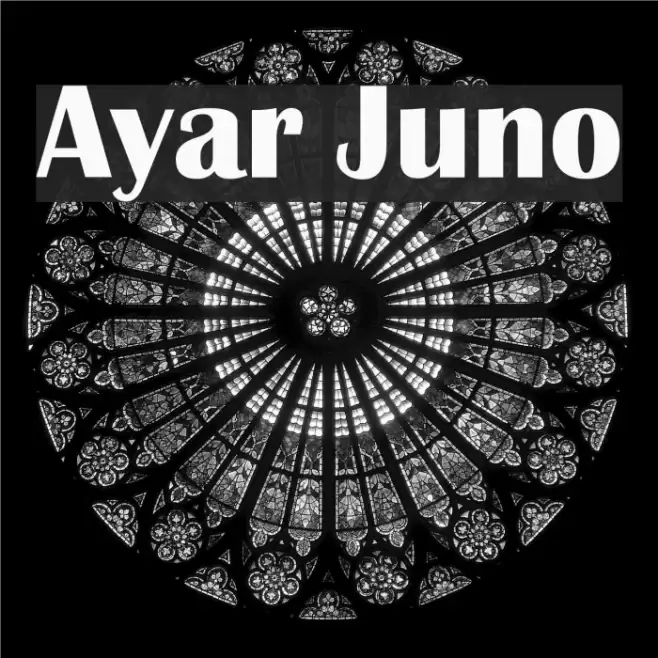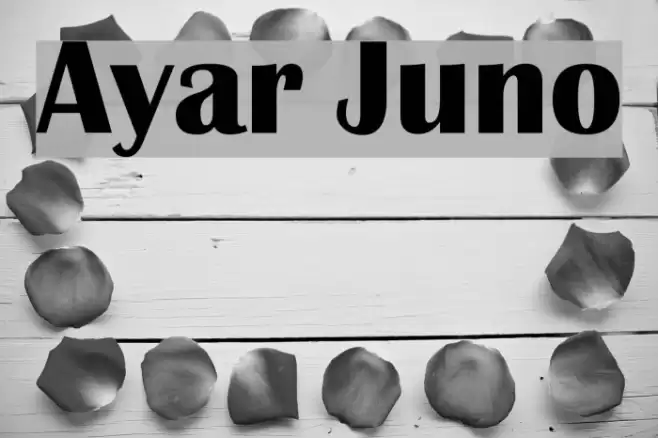
Ayar Juno Font
Ayar Juno Description
This font features bold, strong characters with a classic serif style. The uppercase letters are prominent and commanding, while the lowercase letters maintain a consistent weight and structure. The numerals are clear and robust, ensuring readability. Special characters are well-defined, adding versatility to the font. The overall design is traditional yet impactful, making it suitable for a variety of uses.
A bold serif font with strong, classic characters from Uncategorized fonts.
- Proposed Projects: Ideal for headlines, posters, branding, and editorial design where a strong, authoritative presence is needed.
- Overall Style: Classic